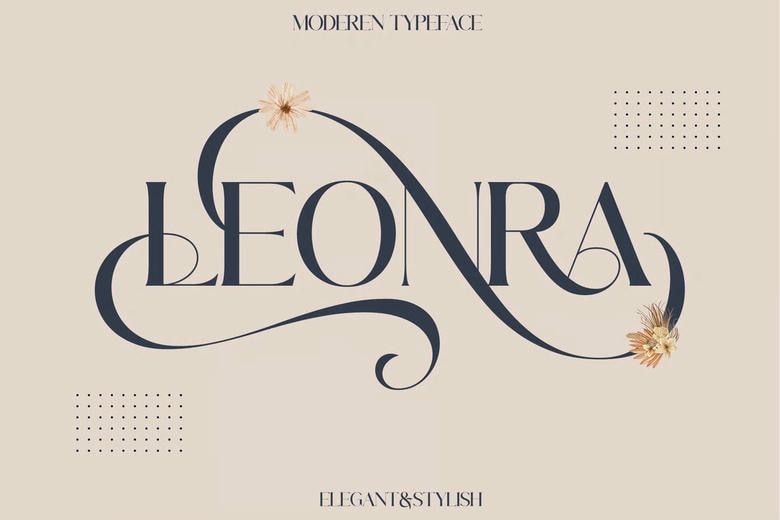
Leonra Font
Leonra is a special modern stylistic style font. Made with great accuracy with beautiful curves. With alternative characters and ligatures that will make your work very special. It is perfect for branding design, logos, greeting cards, title packaging. and other designs. Immediately use our fonts to make your work be even more awesome.
Leonra Serif Font